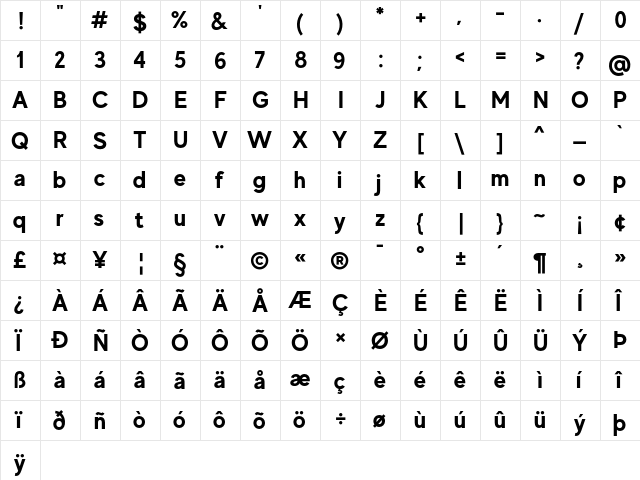
MADE Evolve Sans Bold
Design Context for MADE Evolve Sans Typeface
MADE Evolve Sans is a composed and adaptable typeface that performs quietly and consistently across a wide range of design contexts. The heavy weight commands attention and anchors typographic hierarchies.